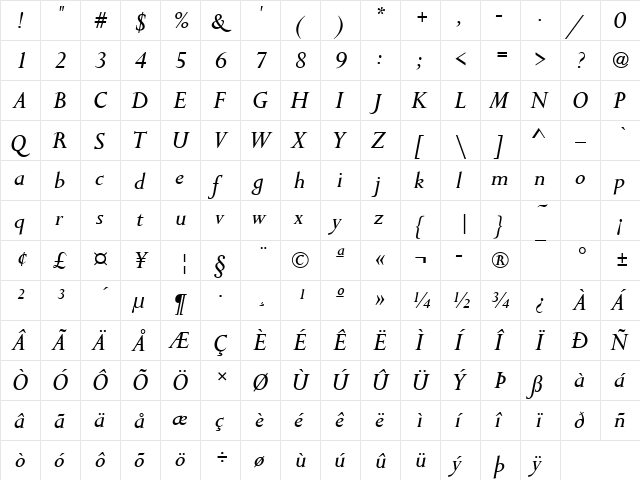
URWPerseusT Italic
Design Context for URWPerseusT Typeface
URWPerseusT is a composed and adaptable typeface that performs quietly and consistently across a wide range of design contexts. Its italic angle brings a sense of urgency and motion to the letterforms.
Pro Tip: Try URWPerseusT for annotation and caption copy alongside an upright companion — the contrast in angle creates a dynamic but ordered typographic system.